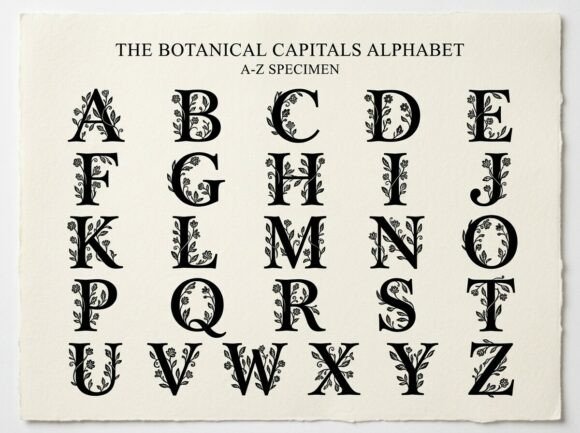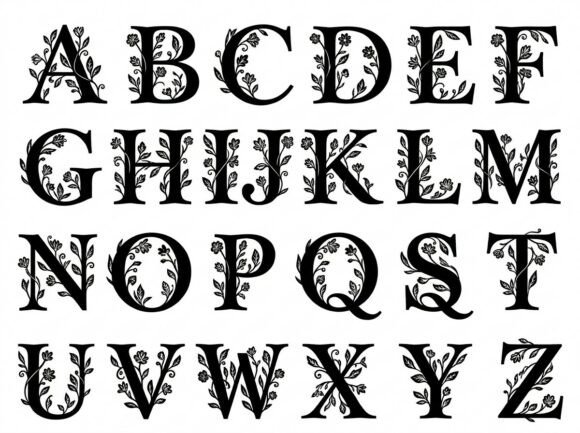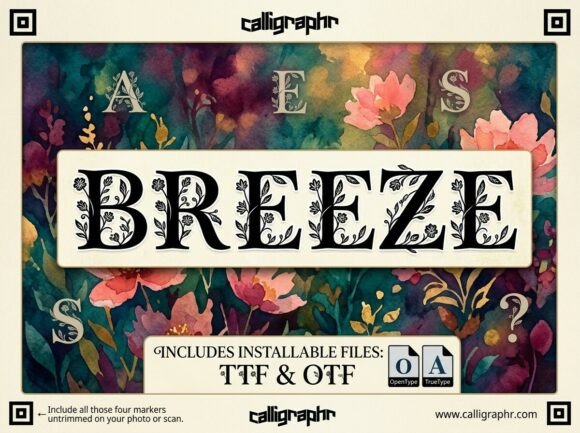
Introducing Breeze Font: The Ultimate Display Font for Creative Minds
Are you tired of using the same old fonts for your designs? Look no further than Breeze Font, a stunning decorative display font that’s sure to turn heads. With its unique artistic elements and strong visual personality, this font is perfect for creators who want to break away from the ordinary and make a statement.
What Makes Breeze Font So Special?
Breeze Font is a versatile font that’s designed to be the center of attention. Its bold and eye-catching design makes it perfect for a variety of applications, including bold headlines, artistic logos, and creative packaging. Whether you’re a designer, crafty DIY enthusiast, or simply someone who loves to create, this font is sure to inspire your next project.
Key Features of Breeze Font
- Unique Artistic Elements: Breeze Font features unique artistic elements that set it apart from other fonts. Each letter is carefully crafted to make a statement and add a touch of elegance to your designs.
- Strong Visual Personality: This font has a strong visual personality that’s sure to grab attention. Whether you’re using it for a headline, logo, or packaging, Breeze Font is sure to make an impact.
- Versatile: Breeze Font is versatile enough for a variety of applications, including bold headlines, artistic logos, and creative packaging.
- Professional and Polished Finish: Despite its bold and artistic design, Breeze Font maintains a professional and polished finish that’s perfect for high-end designs.
Why Breeze Font is Perfect for Designers and Crafters
Breeze Font is perfect for designers and crafters who want to add a touch of elegance and sophistication to their designs. Whether you’re creating a logo, packaging, or simply a social media post, this font is sure to make an impact. Its unique artistic elements and strong visual personality make it perfect for:
- Logos: Create a bold and eye-catching logo that sets your brand apart.
- Packaging: Add a touch of elegance to your packaging with Breeze Font.
- Headlines: Create bold and eye-catching headlines that grab attention.
- Social Media Posts: Add a touch of sophistication to your social media posts with Breeze Font.
Tips for Using Breeze Font
Here are a few tips for using Breeze Font:
- Use it sparingly: Because of its bold and eye-catching design, it’s best to use Breeze Font sparingly. Use it for headlines, logos, or packaging, but not for body text.
- Pair it with a simple font: Pair Breeze Font with a simple font to create contrast and make your design stand out.
- Experiment with colors: Breeze Font looks great in a variety of colors. Experiment with different colors to find the one that works best for your design.
Breeze Font is a stunning decorative display font that’s perfect for designers and crafters who want to add a touch of elegance and sophistication to their designs. With its unique artistic elements and strong visual personality, this font is sure to make an impact. Whether you’re creating a logo, packaging, or simply a social media post, Breeze Font is the perfect choice.